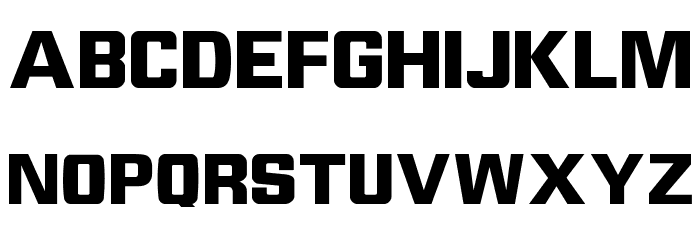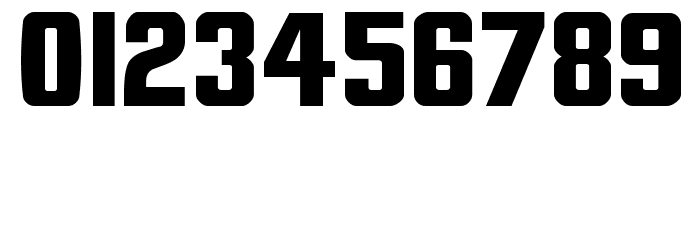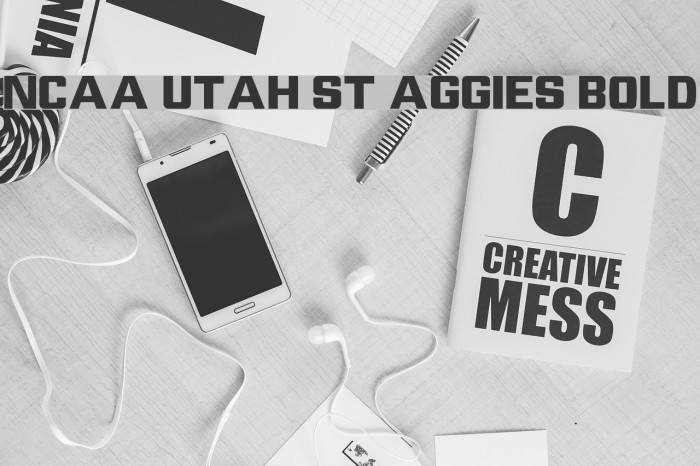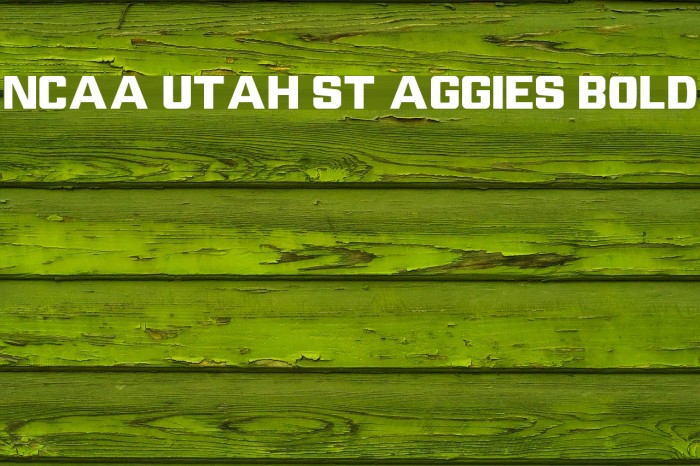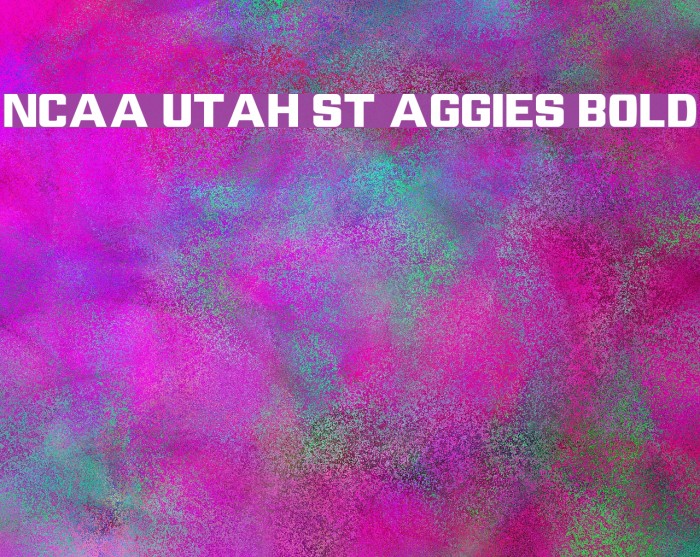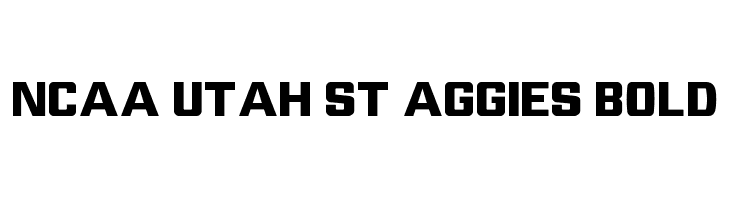
NCAA Utah St Aggies Bold Font
This bold and impactful font features strong, geometric letterforms with a modern and assertive appearance. The uppercase letters are uniform in height, creating a cohesive and structured look. The numbers are equally bold, maintaining the same visual weight as the letters. The font's design is clean and straightforward, with minimal decorative elements, making it highly legible and suitable for various applications. Its boldness and clarity make it ideal for situations where attention is required, such as sports branding or team logos.
A bold, geometric font with strong, modern letterforms.
- Proposed Projects: Ideal for sports branding, team logos, posters, and headlines where a bold statement is needed.